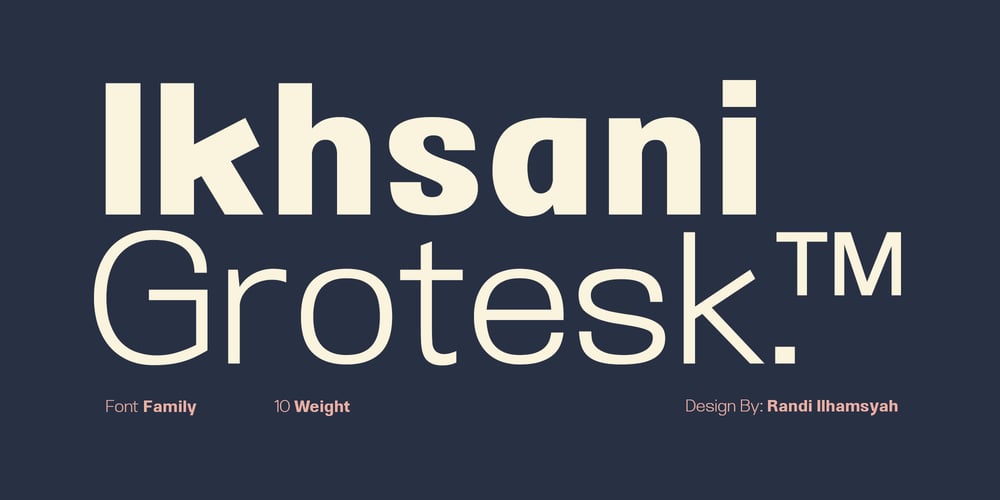
Ikhsani Grotesk
Ikhsani Grotesk font
Ikhsani Grotesk Font Family was designed by Randi Ilhamsyah and published by Makarsih Studio. Ikhsani Grotesk contains 10 styles and family package options. Ikhsani Grotesk is a modern, contemporary font that offers an elegant and stylish look. It’s perfect for any project that requires a bold yet sophisticated style. The font features strong lines and curves with sharp edges to create a unique visual effect. Its clean design makes it easy to read on both digital platforms as well as in print materials, making it ideal for logos, branding projects, websites or other graphic designs. With its versatile nature and timeless appeal, Ikhsani Grotesk is the perfect choice when you need something special yet classic!